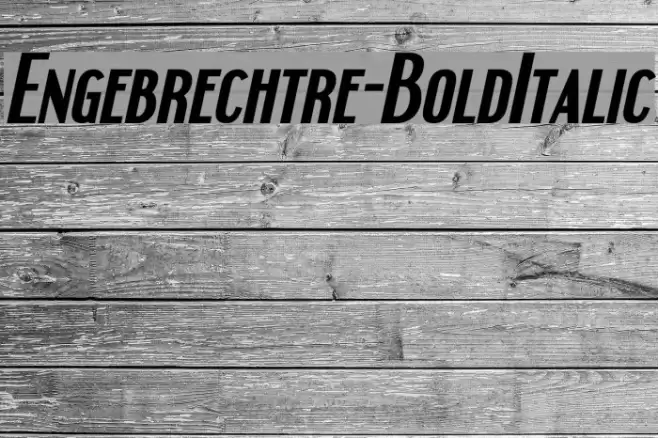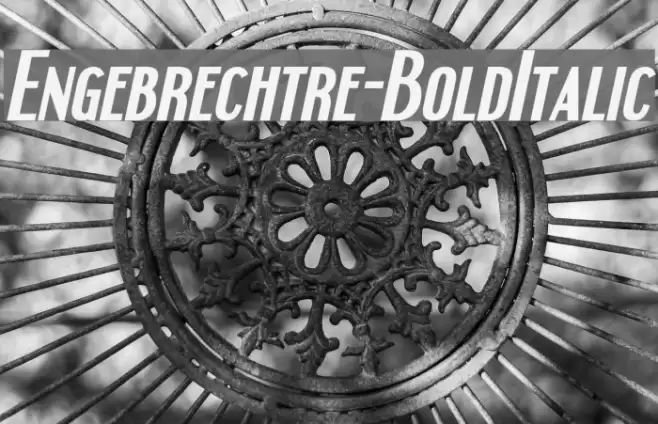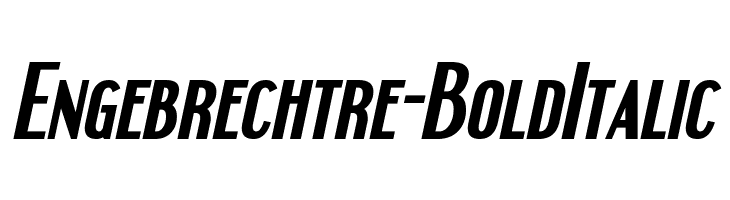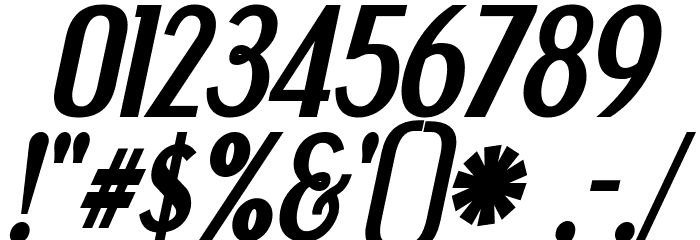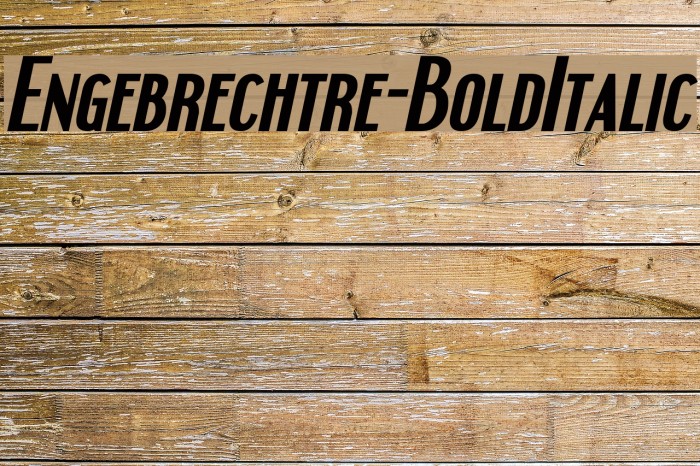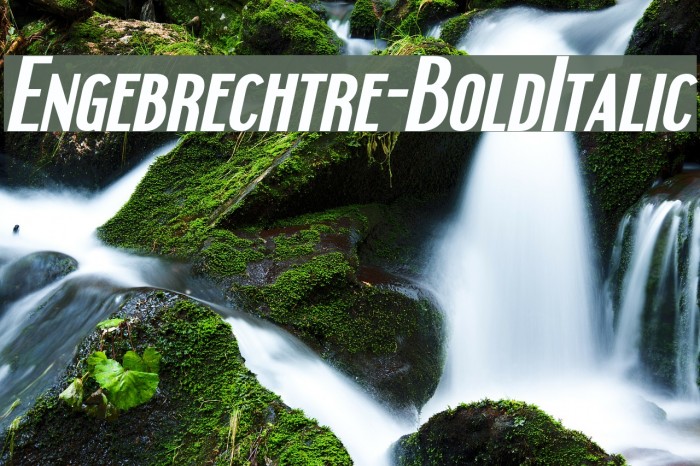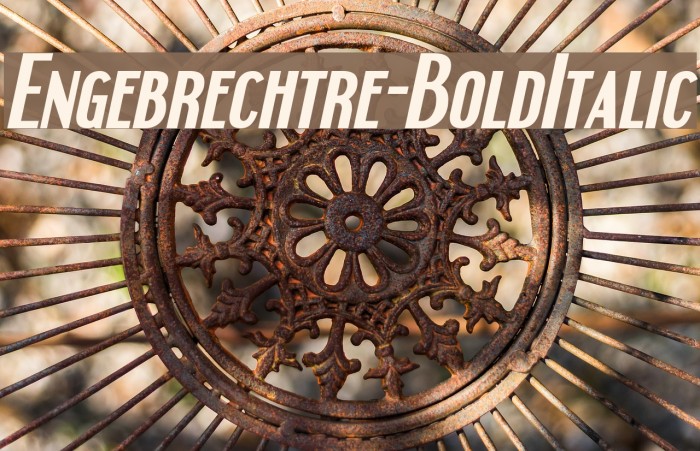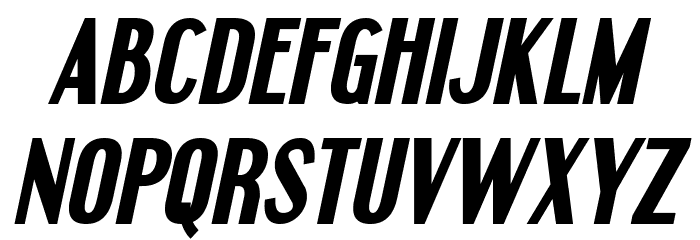
Engebrechtre-BoldItalic Font
Engebrechtre-BoldItalic Description
This font features a bold and italicized style, characterized by its strong, slanted letterforms that convey a sense of dynamism and urgency. The strokes are thick, providing a robust appearance, while the italic slant adds a touch of elegance and movement. The characters are tightly spaced, enhancing the compact and impactful look. The numerals and special characters maintain the same bold and slanted style, ensuring consistency across all elements. This font is well-suited for creating attention-grabbing headlines or titles that require a modern and assertive presence.
A bold, italicized font with strong, slanted letterforms and tight spacing from Uncategorized fonts.
- Proposed Projects: Ideal for use in advertising, branding, and editorial design where a modern and bold statement is needed.
- Character Spacing: Tight